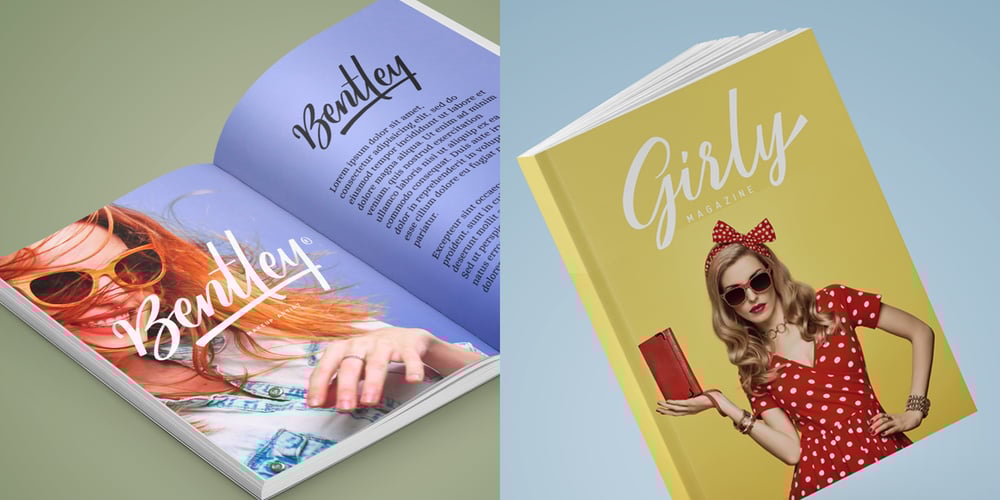
Megattor
Megattor font
Megattor Font Family was designed by Hendry Juanda and published by Letterhend. Megattor contains 1 styles and family package options. Introducing: Megattor typeface! This font is beautifully made to look like natural hand writing. As you can see, the flow of the bold and thin lines creates a realistic hand lettering just by typing on your keyboard! It has many OpenType features like ligatures, stylistic alternate, and lots of Stylistic Set, also support many languages. This typeface is based on handwriting which is very suitable for any design needs you have especially for script logotype project.